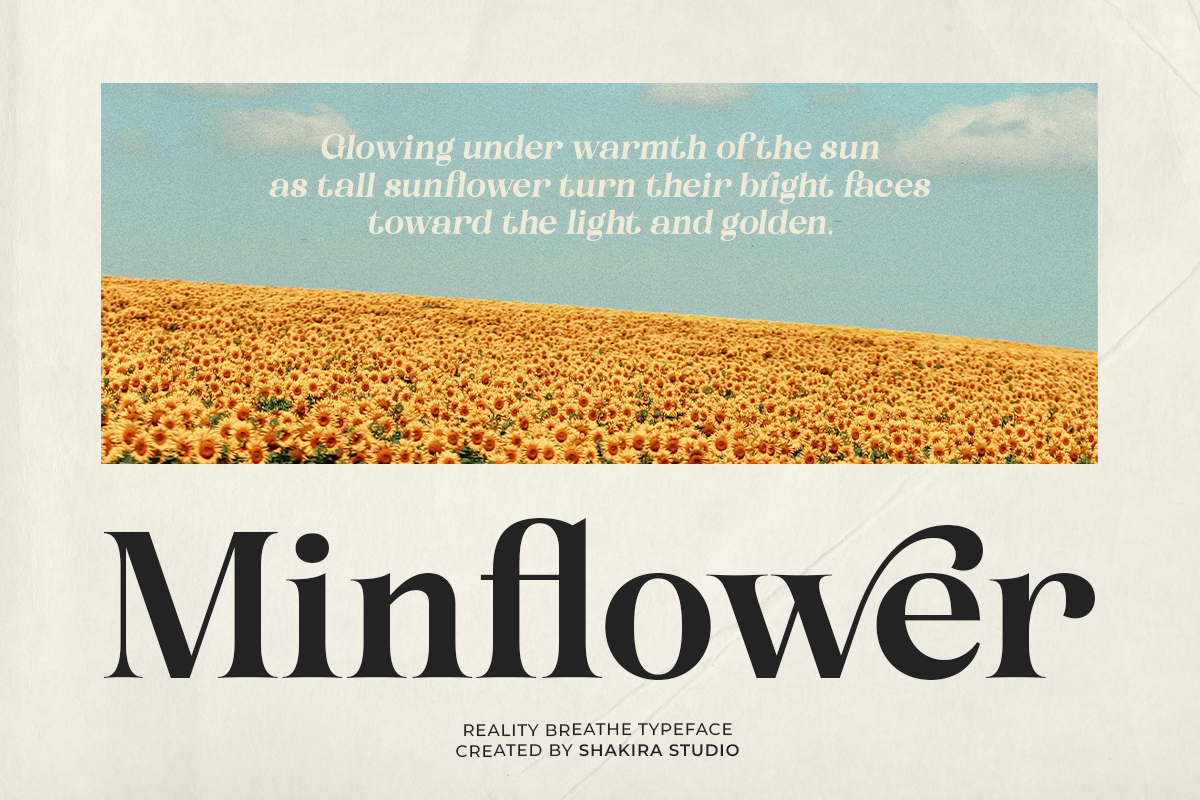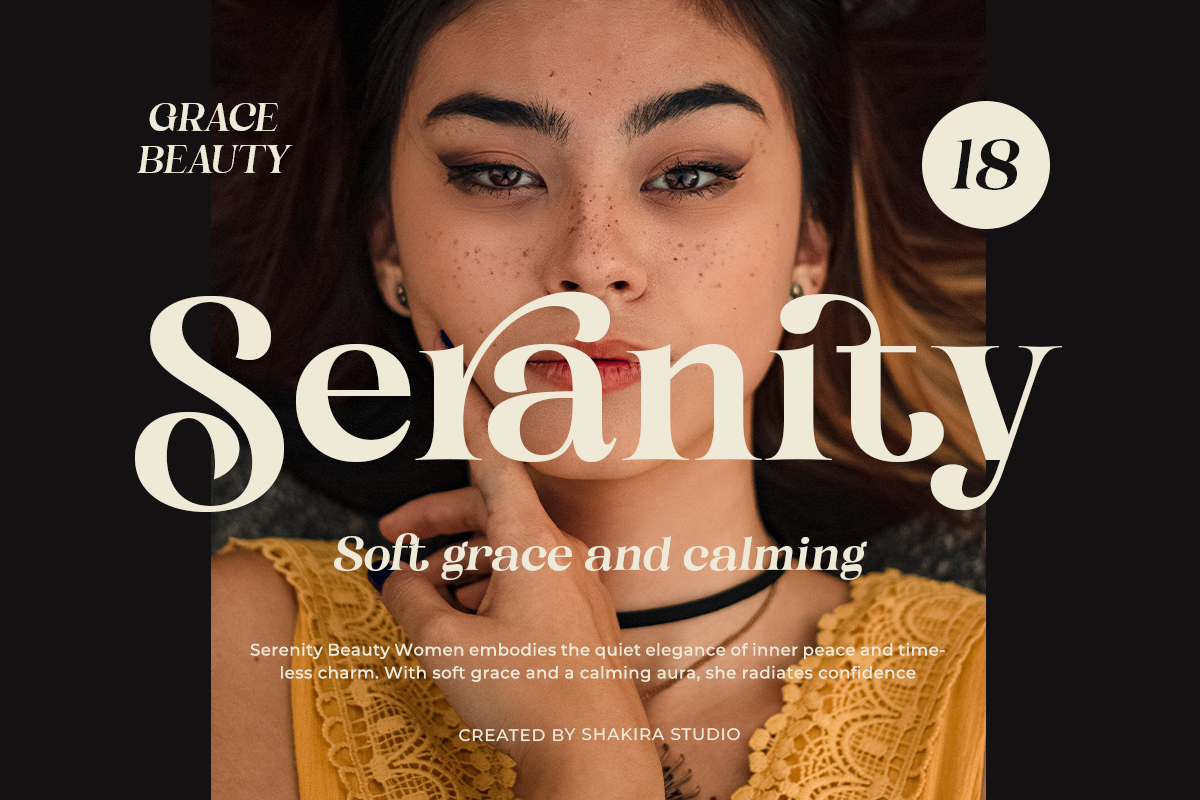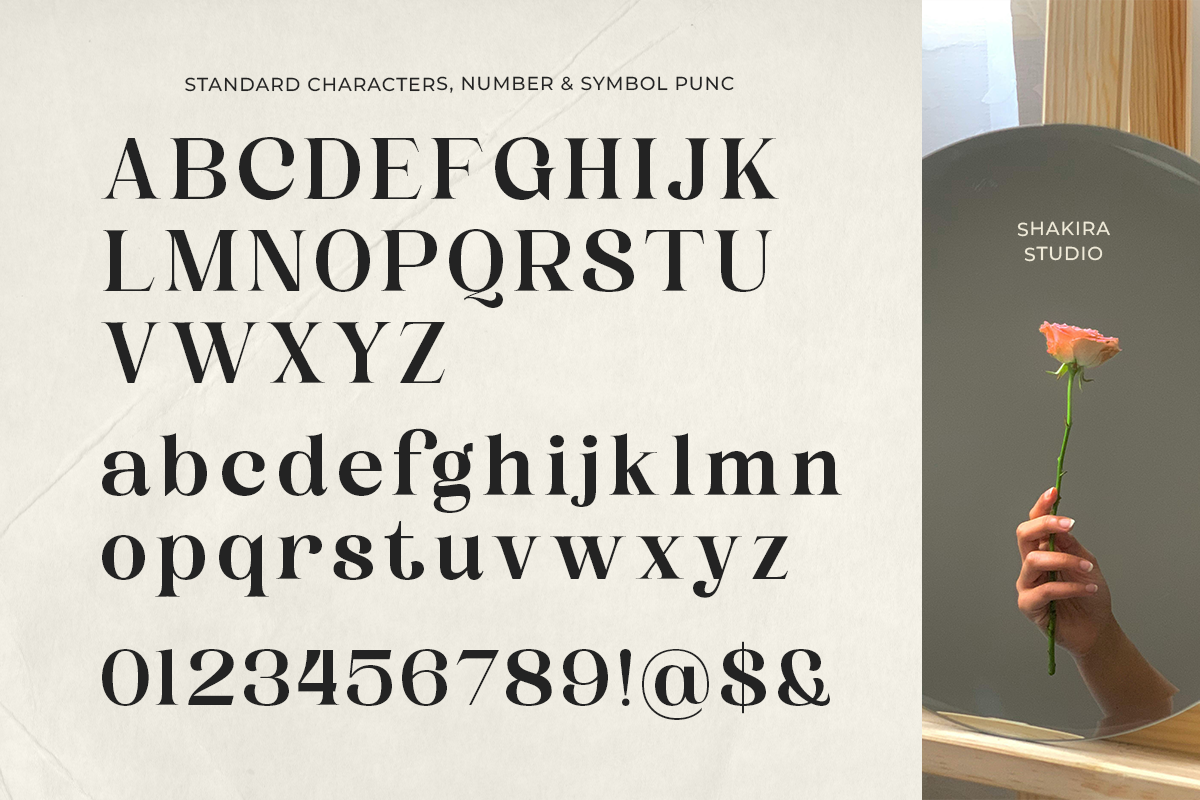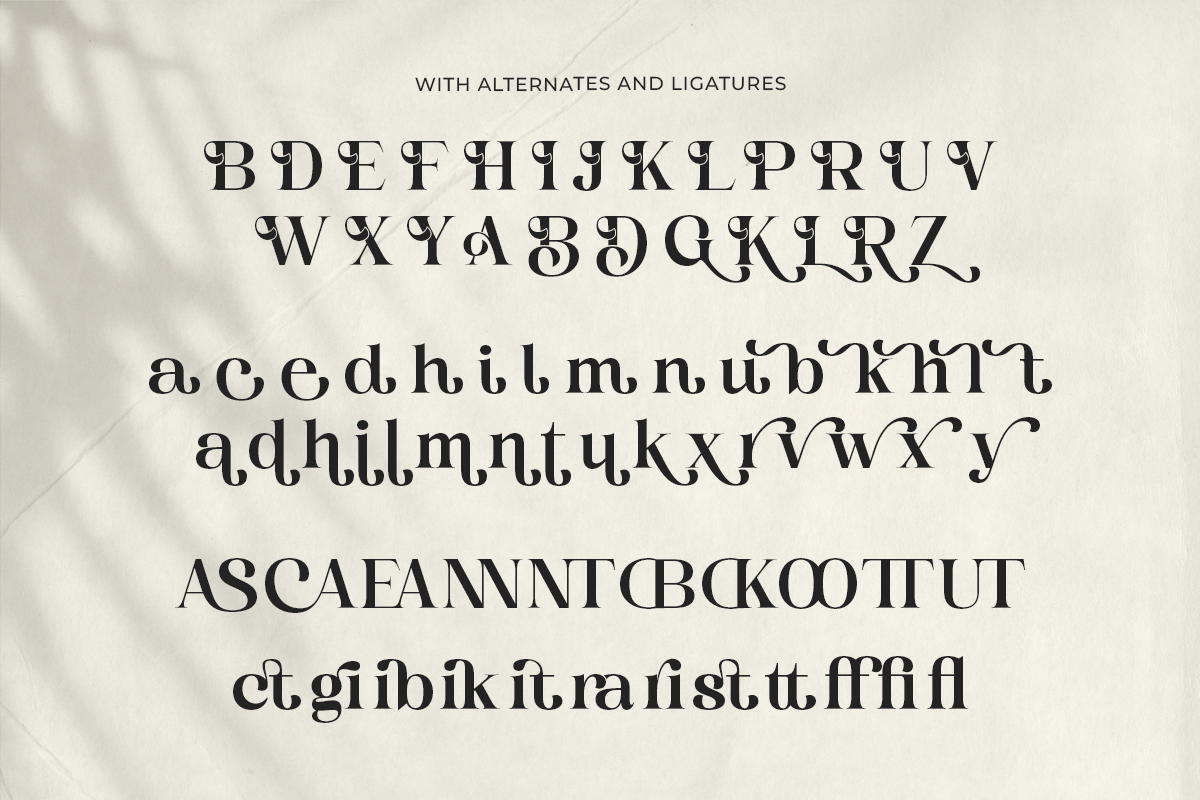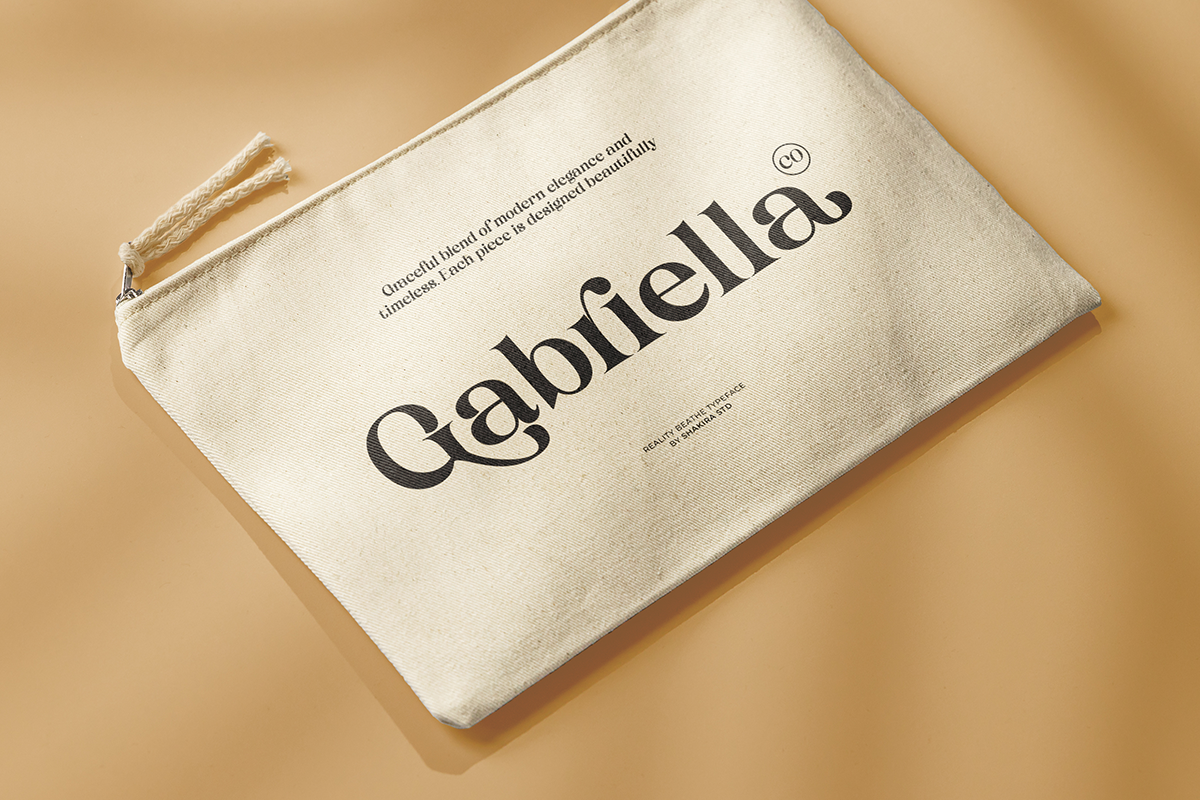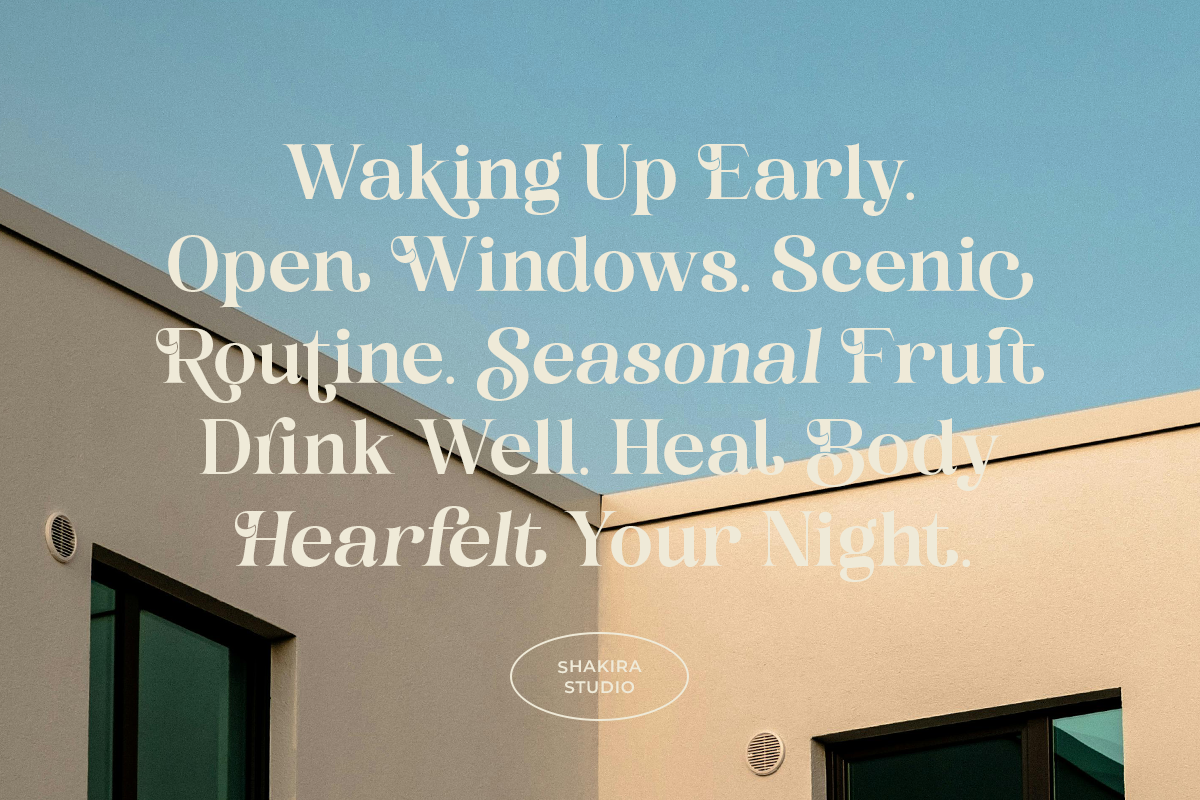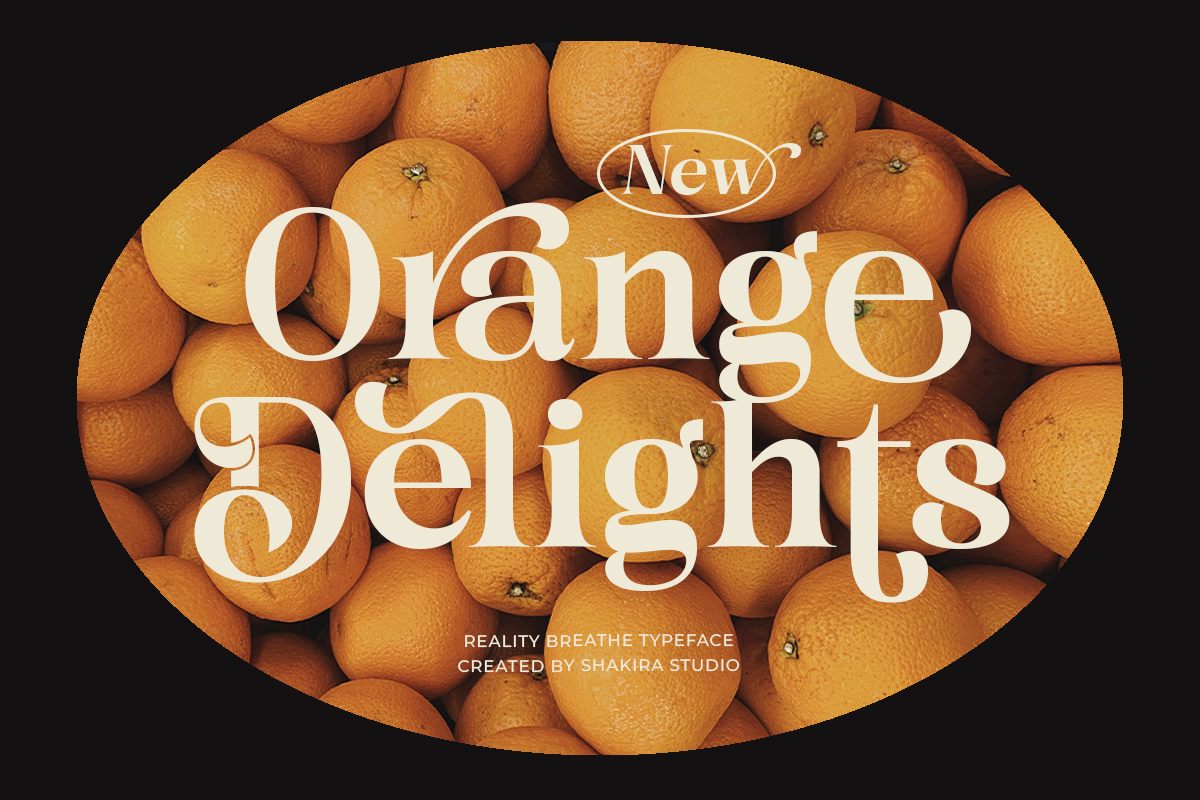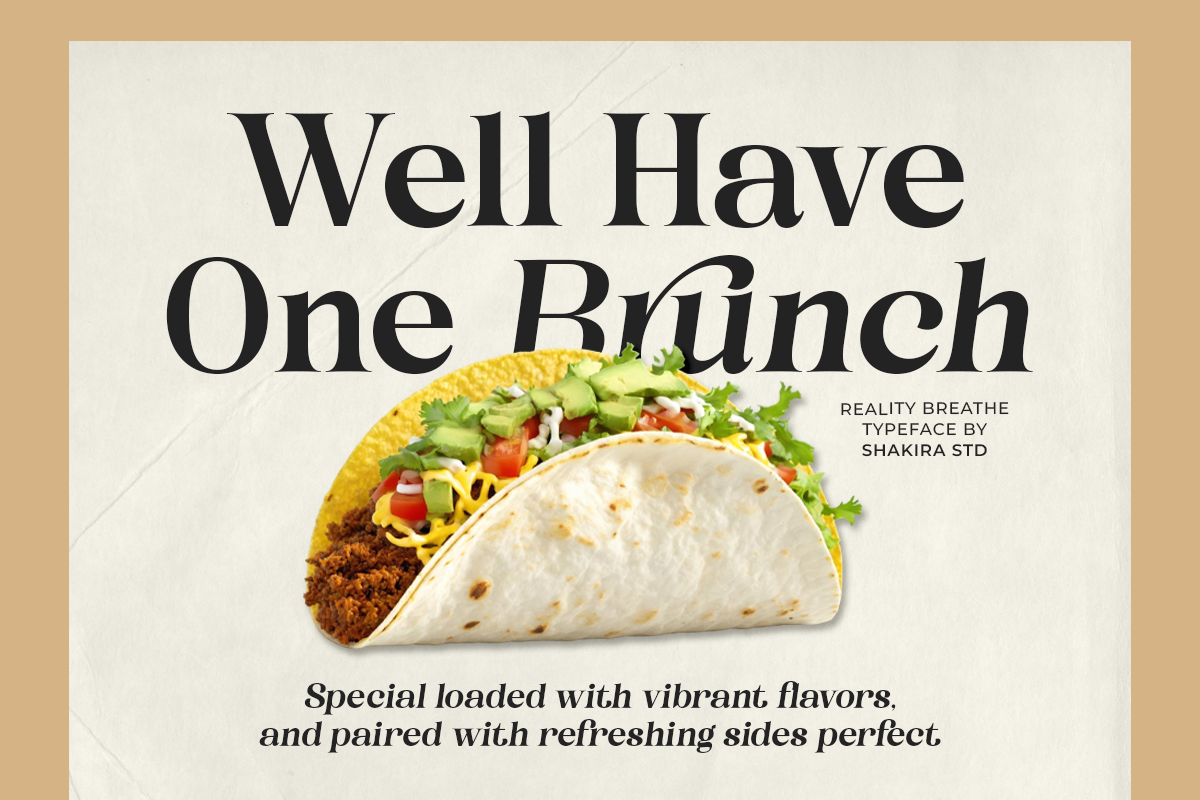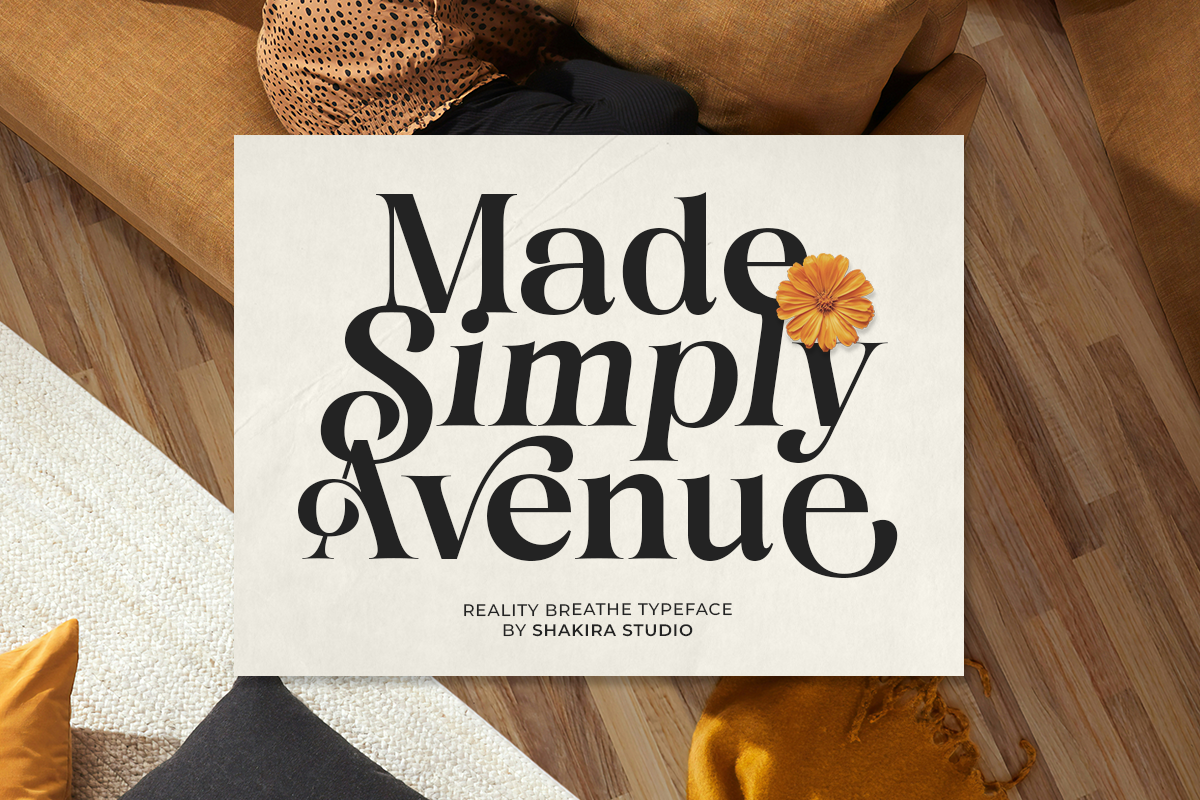
Reality Breathe - Modern Serif
Reality Breathe is a modern serif typeface designed with soft curves, expressive details, and a warm aesthetic touch. Inspired by calm summer tones and luxury editorial layouts, this font delivers refined beauty for creative branding projects.
Perfect for logos, magazine titles, skincare branding, boutique packaging, resort identity, invitations, and high-end advertising. Each letter is crafted to bring a blend of modern elegance and effortless sophistication.